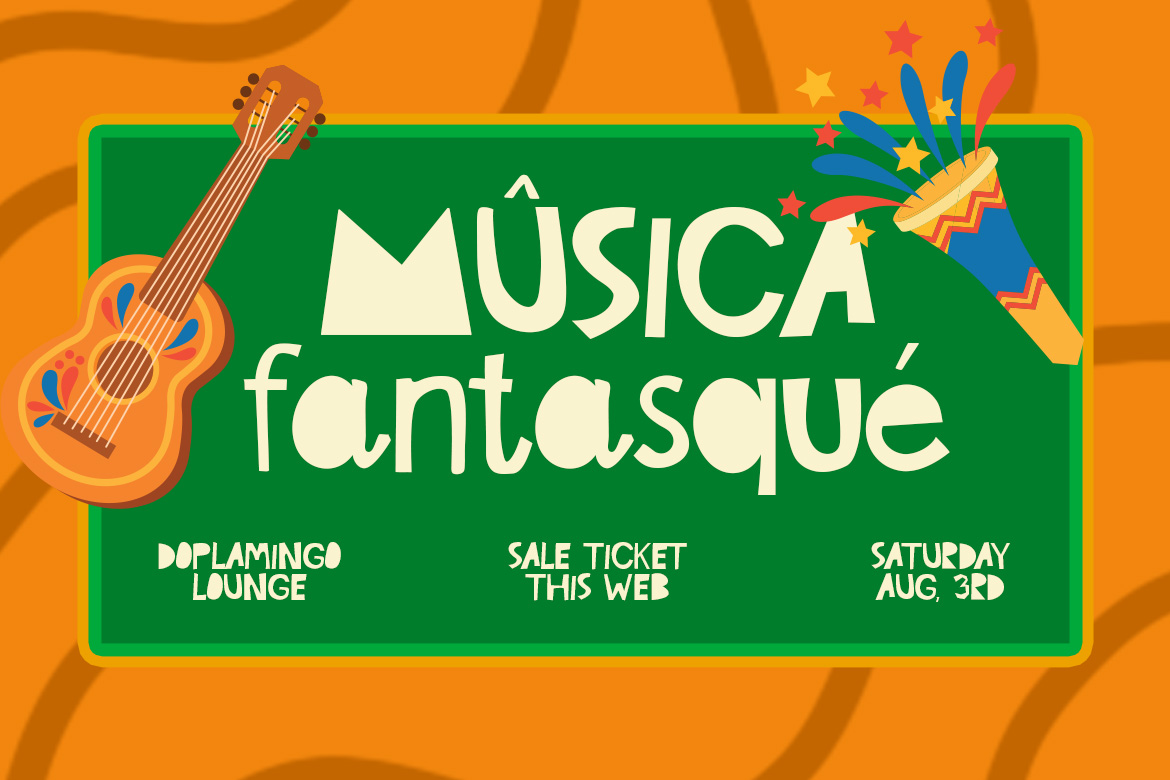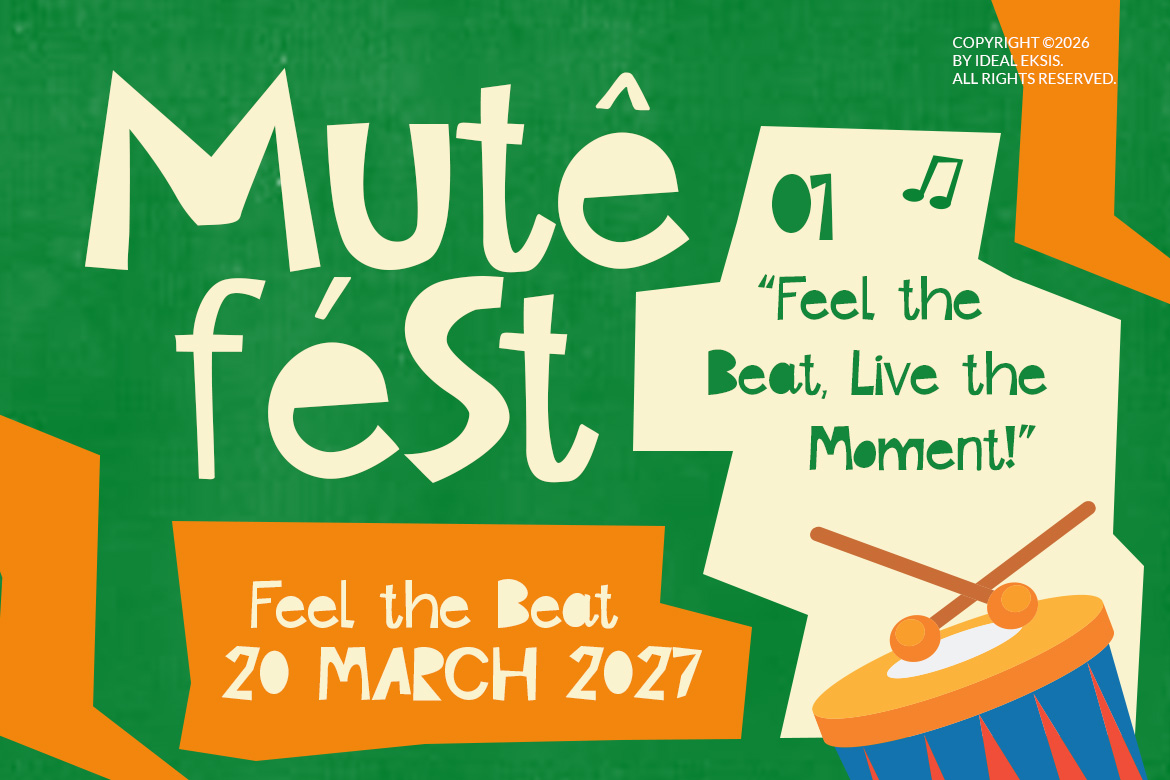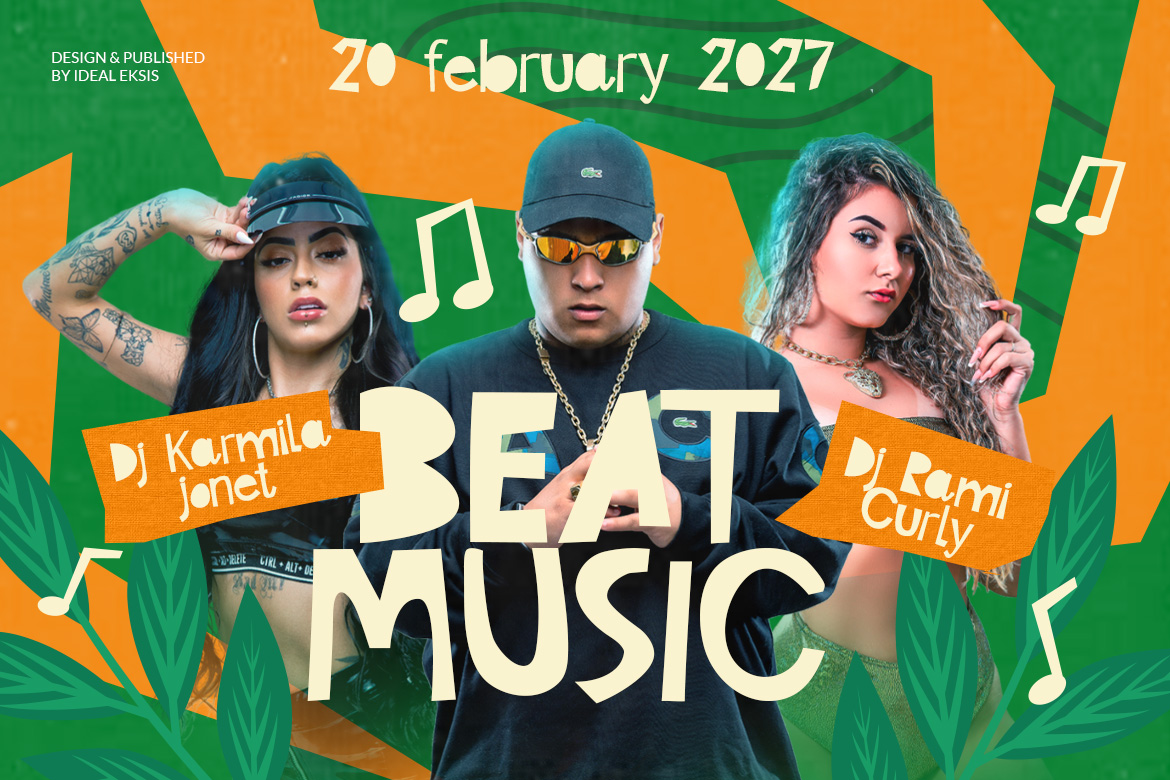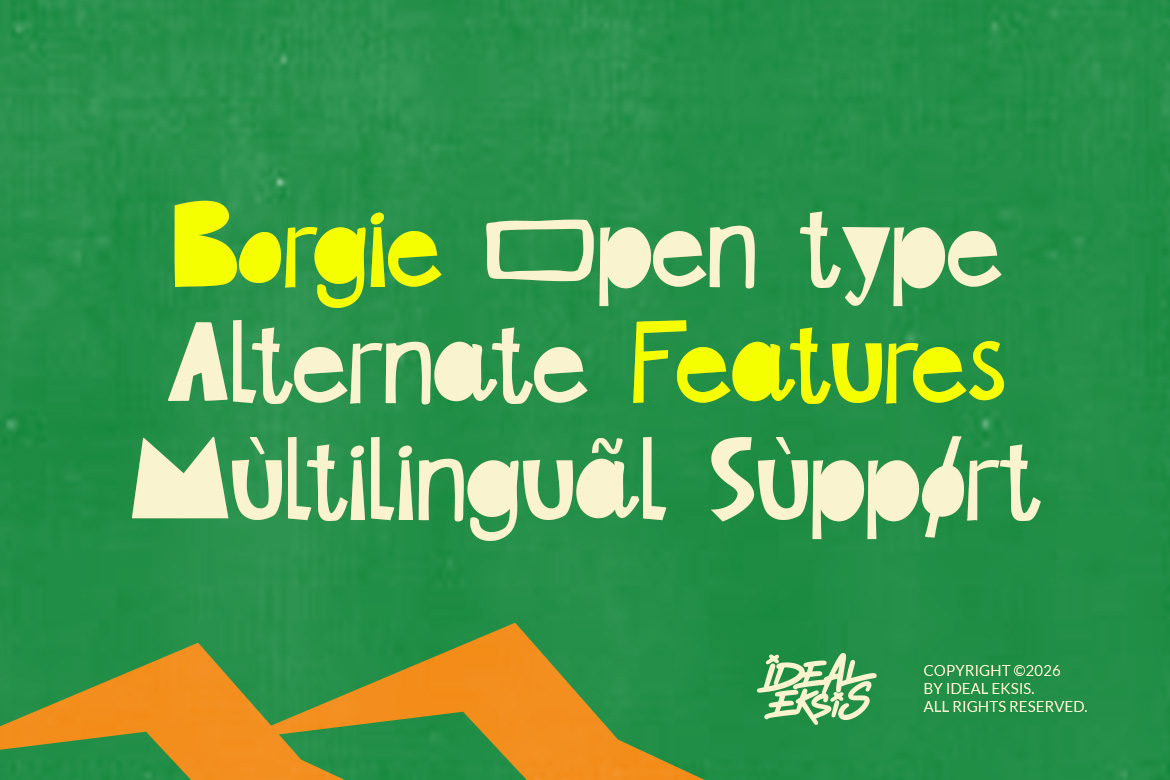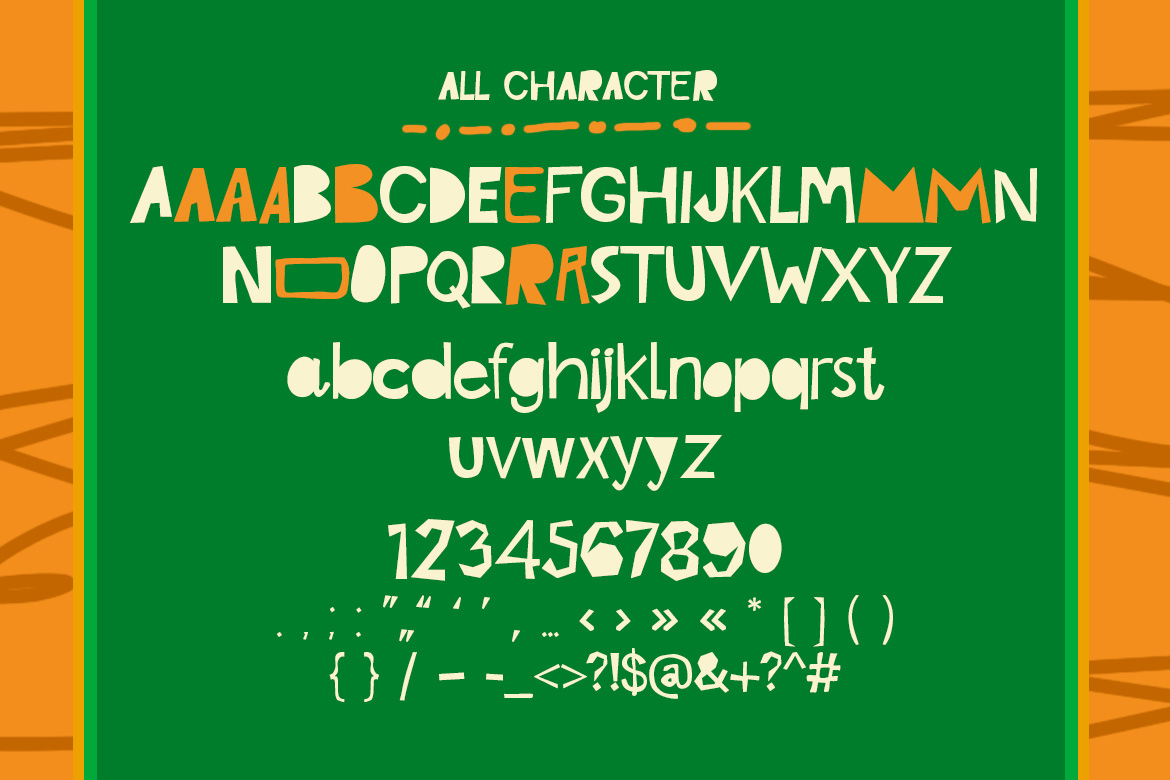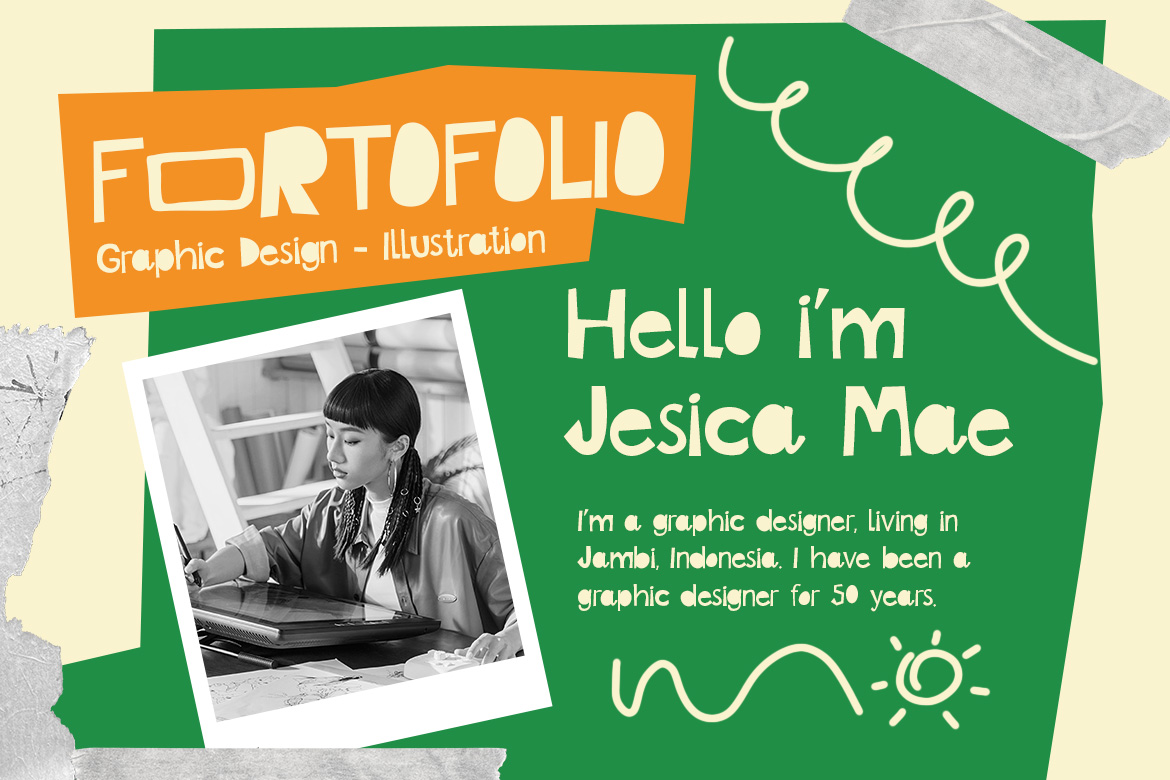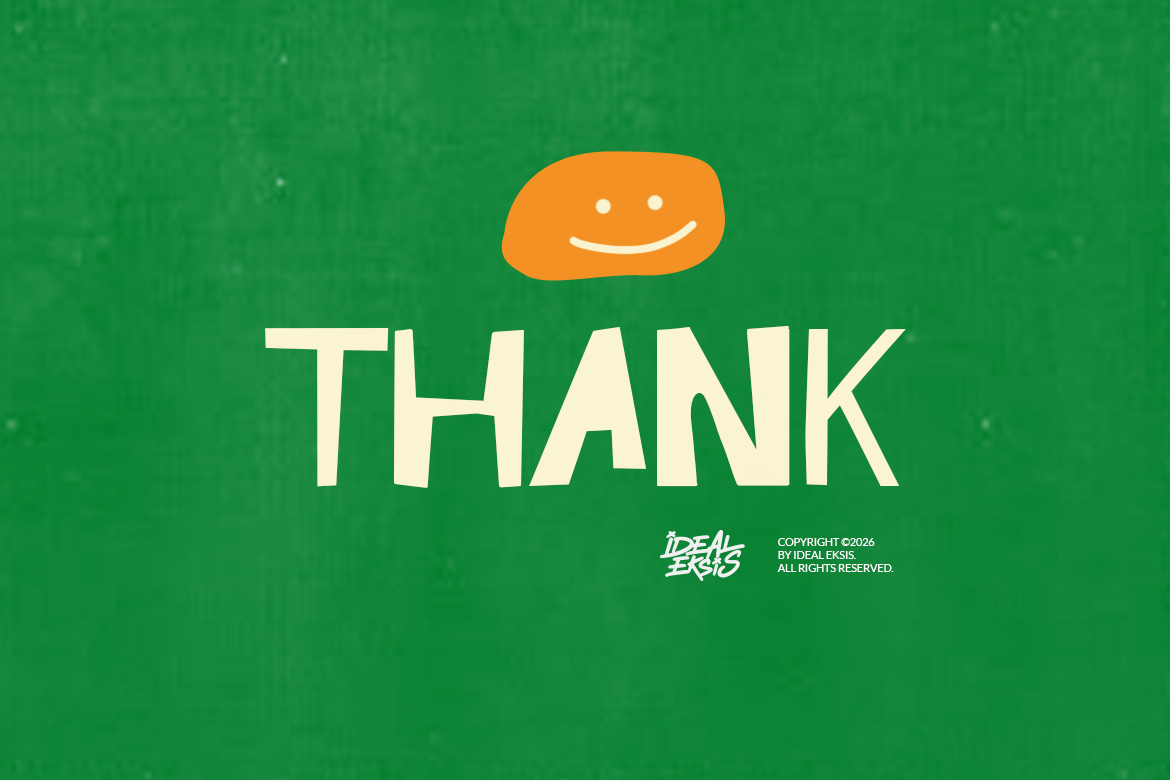
Display typeface · Latin
Borgie
Borgie is a bold, expressive display font characterized by its irregular, organic letterforms and whimsical personality. In Package : OTF TTF WOFF WOFF2 Feature : Uppercase (All Caps) Alternate Numerals Punctuation Easy To Install